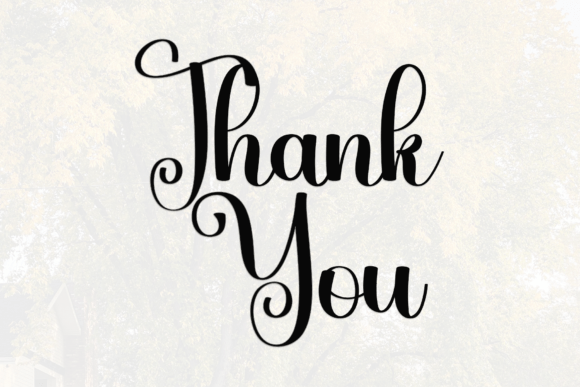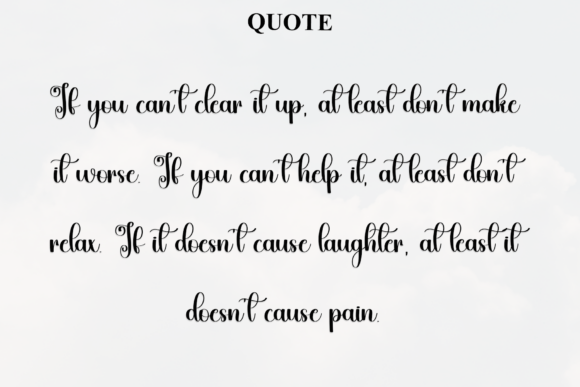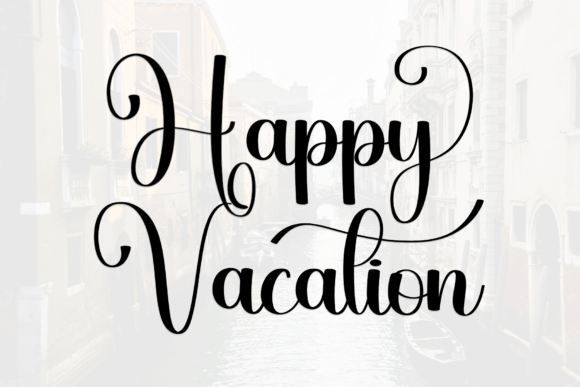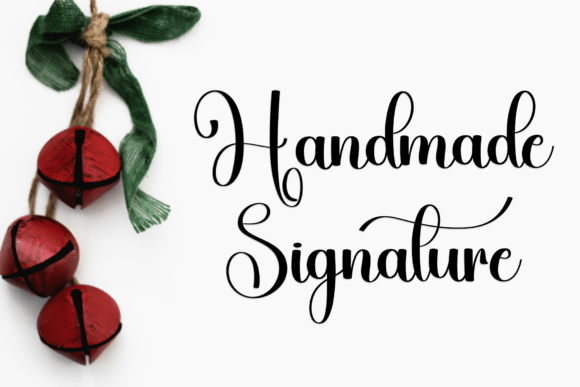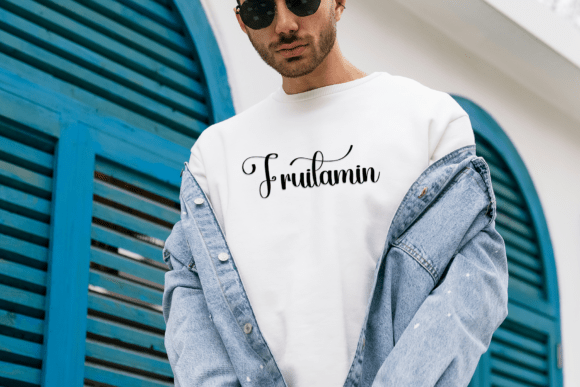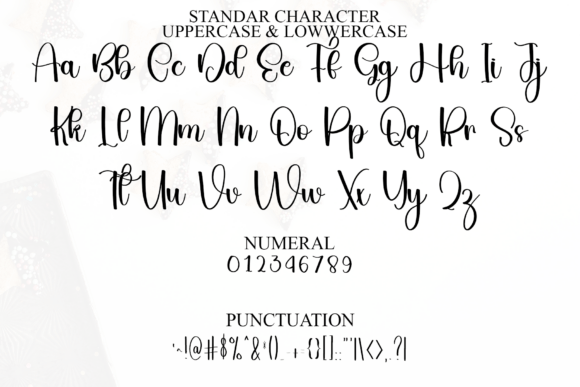
The Birth of a Beautiful Design
There’s something magical about discovering a font that perfectly captures the essence of your creative vision. Perhaps it’s the way the letters dance on the page, or the subtle nuances that give your design a unique touch. Whatever it is, when you find that special font, it’s like a spark of inspiration has ignited within you.
That’s exactly what the Charming Font does – it ignites your creativity and brings your designs to life. With its soft, distinctive strokes, this beautiful font is perfect for a wide range of design projects, from crafts to artistic expressions. Its versatility and compatibility with various applications make it an invaluable tool for designers.
Whether you’re a seasoned pro or just starting out, the Charming Font is sure to charm its way into your heart – and your designs.
Key Features of Charming Font
- Unique Characteristics: Charming Font features a unique blend of elegance and playfulness, with subtle rounded edges and intricate details that set it apart from other fonts.
Charming Font Review
At first glance, I was drawn to the Charming Font due to its playful and whimsical feel. ✨ The font’s unique character set and varied line widths give it a sense of personality that can be both charming and effective in the right context. ✨
Here are some of the font’s standout features:
- Uniquely crafted characters that add to the font’s charm
- Varied line widths and weights that can be used to create visual interest
- The font’s unique character set may not be ideal for formal or professional applications
- The varied line widths can sometimes make text appear uneven or hard to read
Overall, I think the Charming Font is a great choice for designers looking to add a touch of personality to their projects. While it may not be suitable for every application, it’s a fun and creative option that can help to elevate a design. ⚠️ Just be mindful of its limitations and use it judiciously.
To get the most out of Charming Font, use it sparingly to add a touch of elegance and sophistication to your designs.
Pair Charming Font with a clean and simple background to let the font shine.
Experiment with different font sizes and styles to create a unique look.
Charming Font is perfect for:
High-end branding and marketing materials
Special occasion cards and gifts
Any design that requires a touch of elegance and sophistication